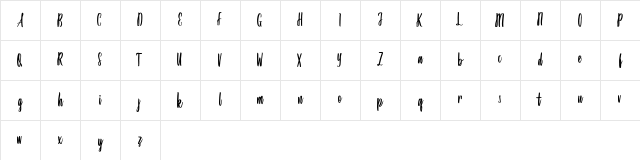
Amindinah Regular Free Font
Amindinah Regular
Foundry: Typefar.Std
Designer: Farul Arjianto
Design Context for Amindinah
Amindinah is a composed and adaptable typeface that performs quietly and consistently across a wide range of design contexts.